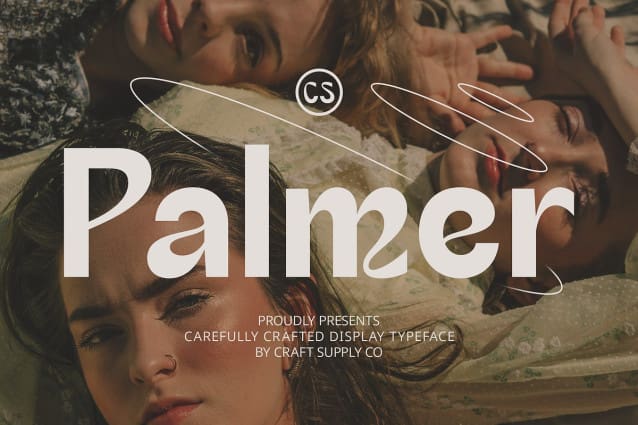
CS Palmer Font
CS Palmer Font is a modern sans-serif font infused with the graceful elegance of Art Nouveau. This design marries the clean simplicity of sans-serif typography with intricate artistic details inspired by the natural world. The font features smooth lines and subtle ornamentation, creating a sophisticated and contemporary aesthetic that beautifully blends functionality with artistic charm.
Sophisticated Design for Premium Branding The unique Art Nouveau elements of CS Palmer lend a touch of refined elegance to any project. Its seamless integration of decorative details with modern sans-serif forms makes it ideal for premium branding, editorial design, and high-end promotional materials. Whether you’re crafting a luxurious brand identity or designing sophisticated editorial layouts, CS Palmer adds a distinctive and artistic touch to your work.
Showcasing Contemporary Beauty and Grace CS Palmer excels in applications that aim to highlight a modern yet artistic style. Its combination of smooth, clean lines and delicate ornamentation ensures that your designs stand out with both elegance and creativity. Perfect for projects that seek to present a sophisticated and contemporary artistic flair, CS Palmer provides a perfect balance of beauty and modernity, making it a versatile choice for a range of high-end design needs.